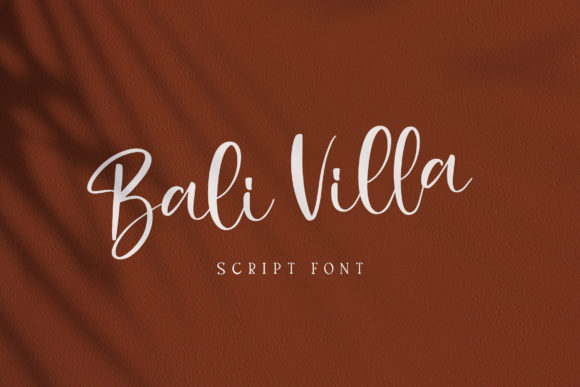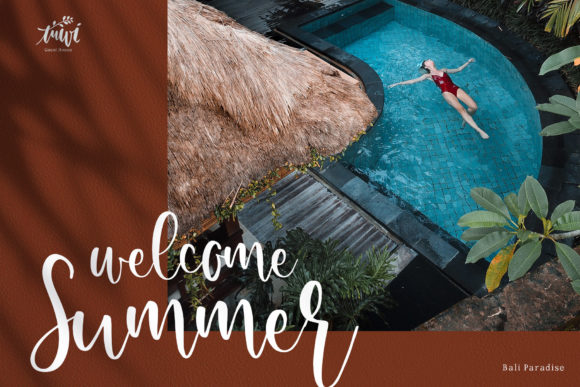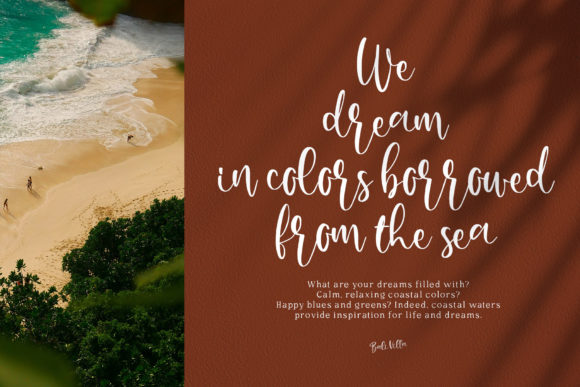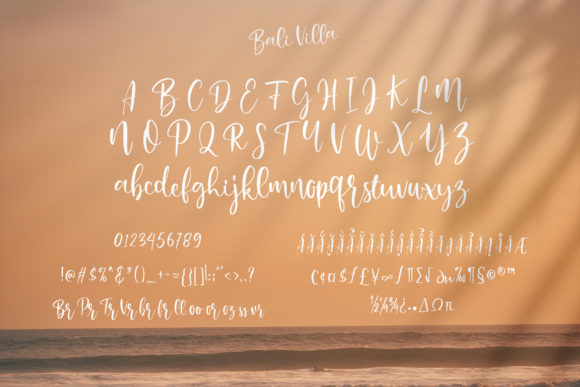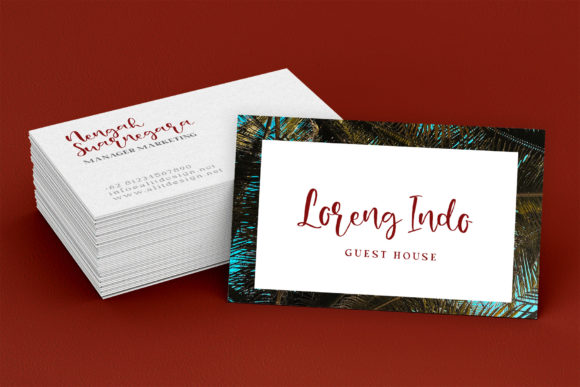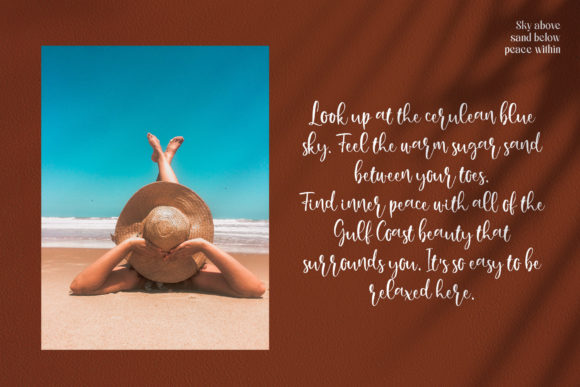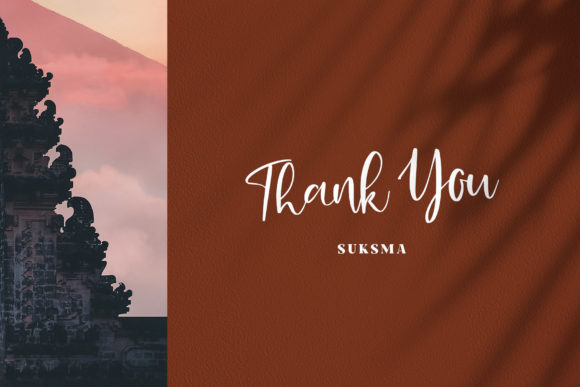
Bali Villa Font
About Bali Villa Font
Bali Villa is a flowing handwritten font, described by an elegant touch, perfect for your favorite projects. Fall in love with its incredibly distinct and timeless style and use it to create spectacular designs!